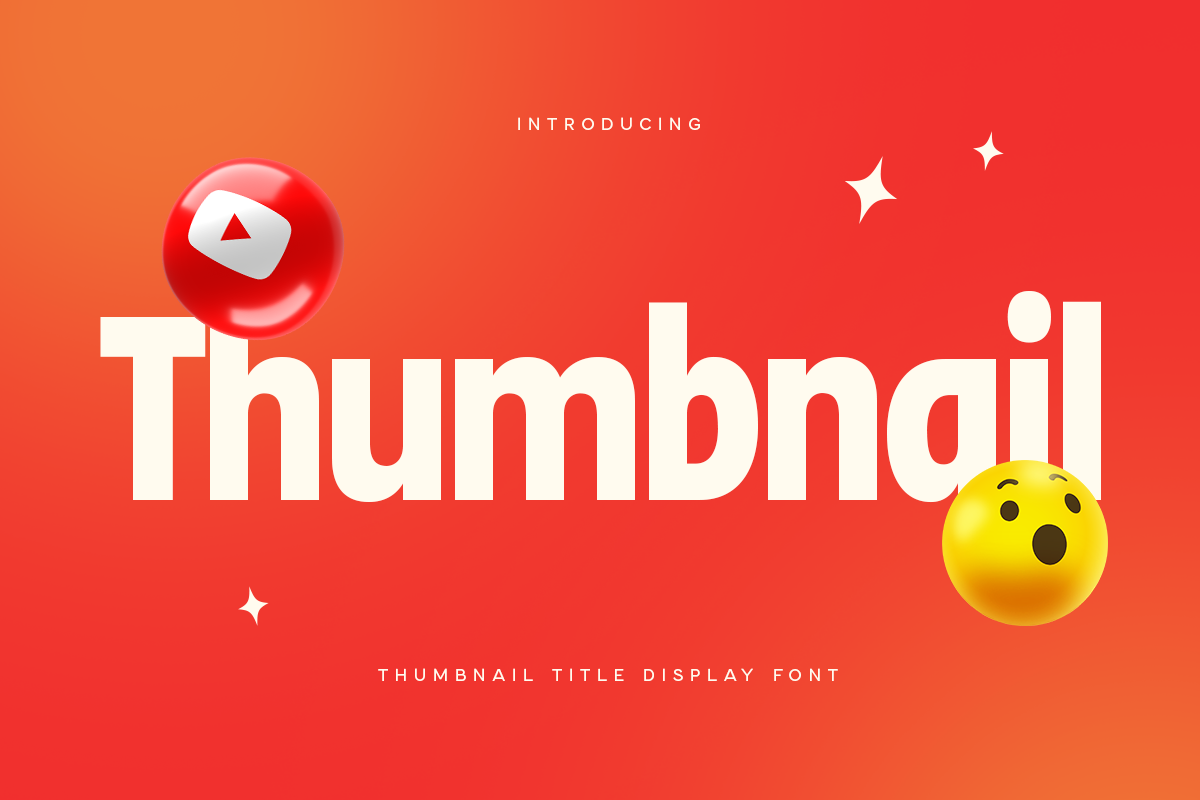
Thumbnail - Title Headline Font
Create eye-catching headlines and thumbnails with this modern minimalist sans serif display font. Thumbnail is a well-balanced modern typeface featuring a minimalist, unique, and iconic sans serif design. Mix and match characters to create countless variations and unique shapes in just seconds. This clean sans serif font with minimalist styling delivers exceptional legibility across all your projects. Perfect for social media headlines, thumbnail titles, branding projects, logos, poster designs,...